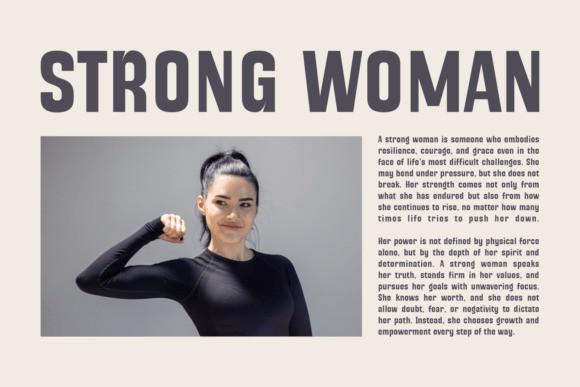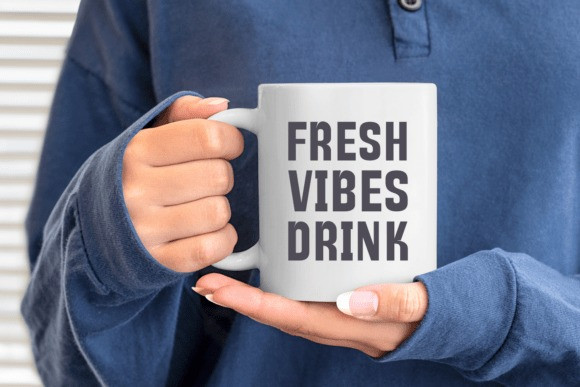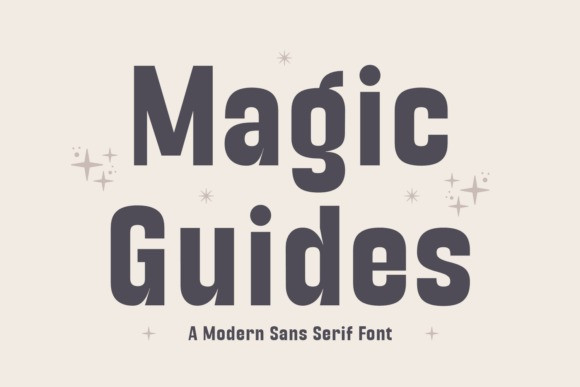
Magic Guides Font
Magic Guides Font is a modern sans serif font with a bold, playful touch and a hint of whimsy. Its clean letterforms are softened by rounded details, while decorative star accents add a magical charm. This versatile typeface works beautifully for children’s books, branding, posters, social media, and creative projects where you want to mix professionalism with a touch of wonder.